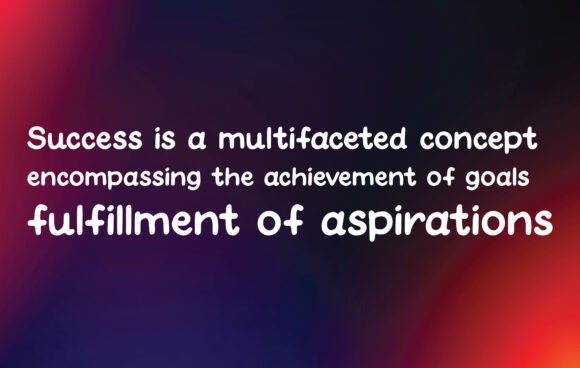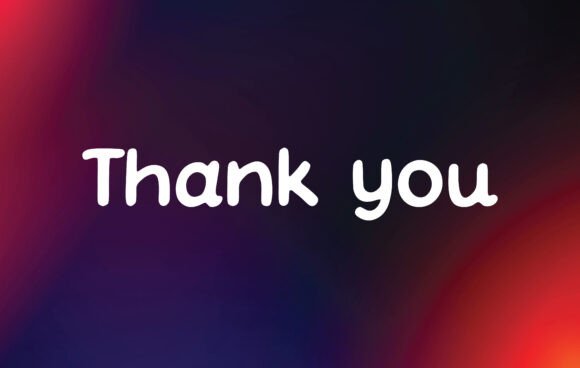
Discover the Beauty of Armella Font: Elevate Your Designs with this Stunning Handwritten Font
Are you a designer or crafter looking for a font that can take your creative ideas to the next level? Look no further than Armella Font, a lovely and beautiful handwritten font that is sure to impress. With its unique and elegant style, Armella Font is the perfect choice for creating eye-catching logos, branding, and quotes that will leave a lasting impression on your audience.
What Makes Armella Font So Special?
Armella Font is a one-of-a-kind handwritten font that boasts a distinctive and charming style. Its elegant and refined appearance makes it perfect for a wide range of design projects, from logos and branding to quotes and social media graphics. Whether you’re looking to create a sophisticated and luxurious feel or a more playful and whimsical vibe, Armella Font is the ideal choice.
The Benefits of Using Armella Font
So, what are the benefits of using Armella Font in your designs? Here are just a few reasons why this stunning handwritten font is a must-have for designers and crafters:
• Elegant and Refined Appearance: Armella Font has a sophisticated and elegant appearance that is sure to elevate your designs and give them a professional finish.
• Versatile: This font is perfect for a wide range of design projects, from logos and branding to quotes and social media graphics.
• Easy to Read: Despite its elegant and refined appearance, Armella Font is still easy to read, making it perfect for body text and other applications where legibility is key.
• Unique and Memorable: Armella Font has a distinctive and charming style that is sure to make your designs stand out from the crowd and leave a lasting impression on your audience.
How to Use Armella Font in Your Designs
Using Armella Font in your designs is easy. Here are a few tips to get you started:
• Logos and Branding: Use Armella Font to create stunning logos and branding materials that will help you establish a strong and recognizable brand identity.
• Quotes and Social Media Graphics: Armella Font is perfect for creating eye-catching quotes and social media graphics that will help you engage with your audience and build your brand.
• Invitations and Stationery: Use Armella Font to create beautiful invitations and stationery that will add a touch of elegance and sophistication to your correspondence.
Tips for Getting the Most Out of Armella Font
Here are a few tips for getting the most out of Armella Font:
• Experiment with Different Sizes and Colors: Don’t be afraid to experiment with different sizes and colors to find the perfect combination for your design.
• Pair with Other Fonts: Armella Font pairs well with a wide range of other fonts, so don’t be afraid to experiment with different combinations to find the perfect look for your design.
• Use in Combination with Images: Armella Font looks stunning when used in combination with images, so consider using it to add a touch of elegance and sophistication to your designs.
In conclusion, Armella Font is a stunning handwritten font that is sure to elevate your designs and take your creative ideas to the next level. With its elegant and refined appearance, versatility, and ease of use, Armella Font is the perfect choice for designers and crafters looking to create eye-catching logos, branding, and quotes. So why wait? Download Armella Font today and start creating beautiful designs that will leave a lasting impression on your audience.